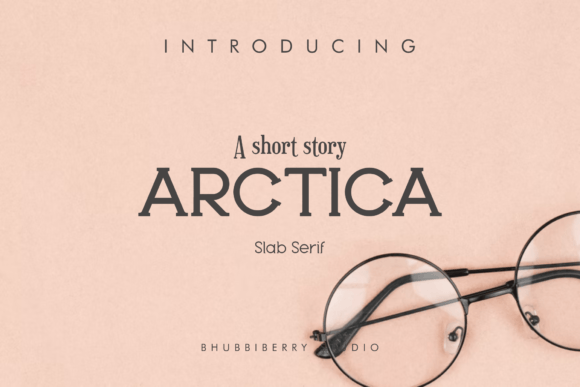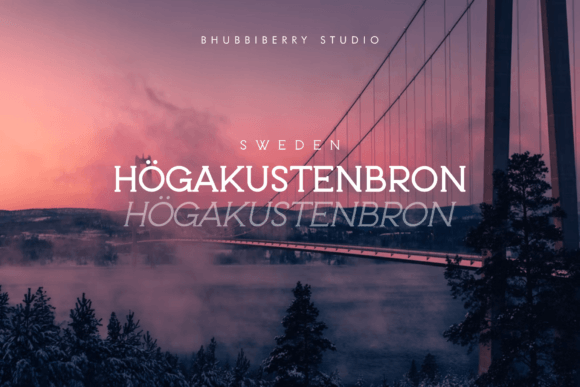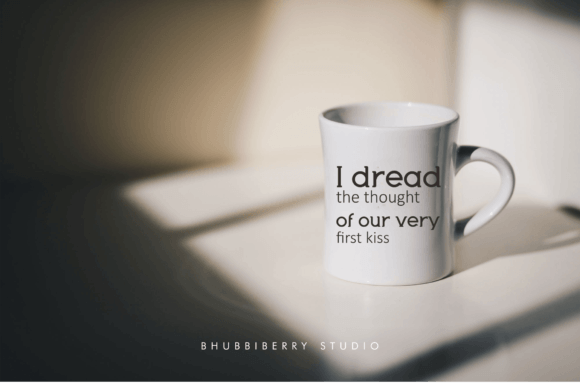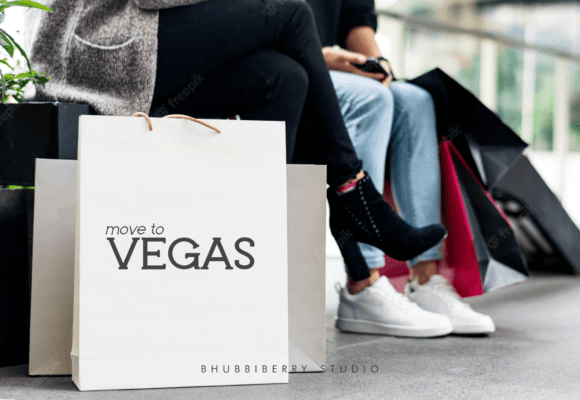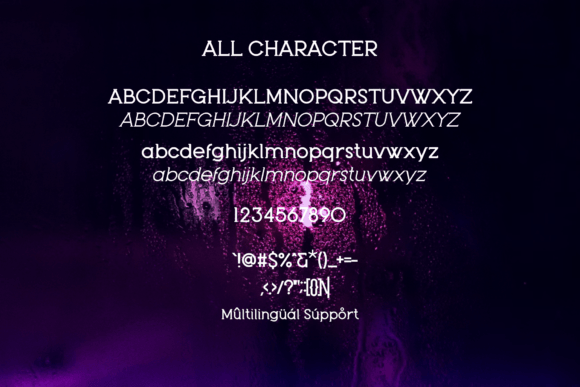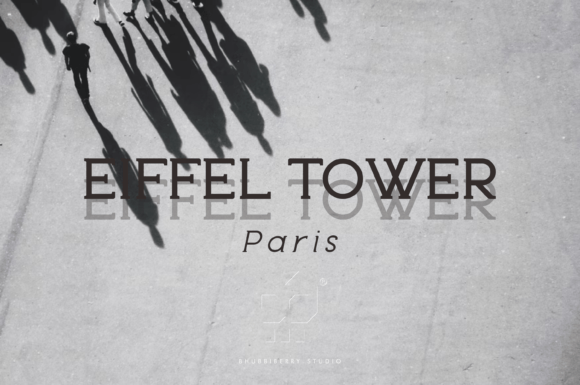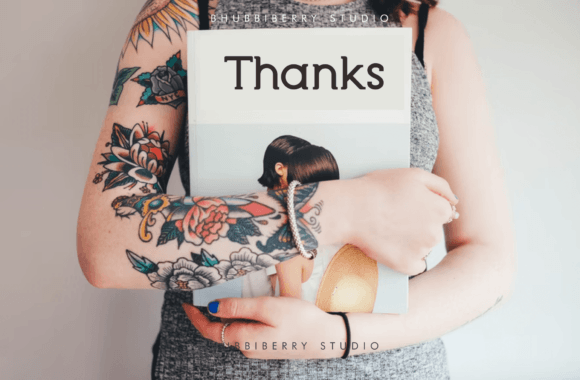
Arctica
Arctica: A Retro Line Slab Serif Font
Arctica is a retro line slab serif font perfect for product packaging, branding projects, magazines, social media posts, or just used to express words above the background. Add it to your most creative projects, and they will capture everyone’s attention!
Key Features of Arctica
• Retro Design: Offers a nostalgic look inspired by vintage typography.
• Line Slab Serif: Features distinctive linear serifs that add character and style.
• Versatile Application: Ideal for both print and digital media projects.
• Attention-Grabbing: Designed to make your creative projects stand out.
Ideal Uses for Arctica
Arctica’s unique characteristics make it particularly well-suited for:
When incorporating Arctica into your designs, consider these tips:
• Use for headlines or short blocks of text to showcase its retro style.
• Experiment with different sizes to highlight the font’s linear slab serif features.
• Utilize its attention-grabbing nature to make key elements stand out in your designs.
Arctica is an excellent choice for designers looking to add a retro touch to their work with a line slab serif font. Its ability to capture attention and bring a nostalgic feel to various design projects makes it stand out in the world of typography. Whether you’re working on product packaging, creating magazine layouts, or developing content for social media, Arctica offers the perfect blend of vintage charm and modern versatility.
Furthermore, Arctica’s unique design allows it to shine in various contexts. From branding projects to digital content, this font can elevate your creative work with its distinctive style. Its retro yet readable appearance works particularly well in designs that aim to evoke a sense of nostalgia while maintaining a contemporary edge.
In conclusion, Arctica is a font that truly captures the essence of retro design in modern typography. Its versatility across different media showcases its adaptability to various creative needs. For those looking to add a touch of vintage flair to their work, Arctica can enhance themed creations with its distinctive style. It’s the perfect choice for designers seeking to make a bold, nostalgic impact across a wide range of creative projects.